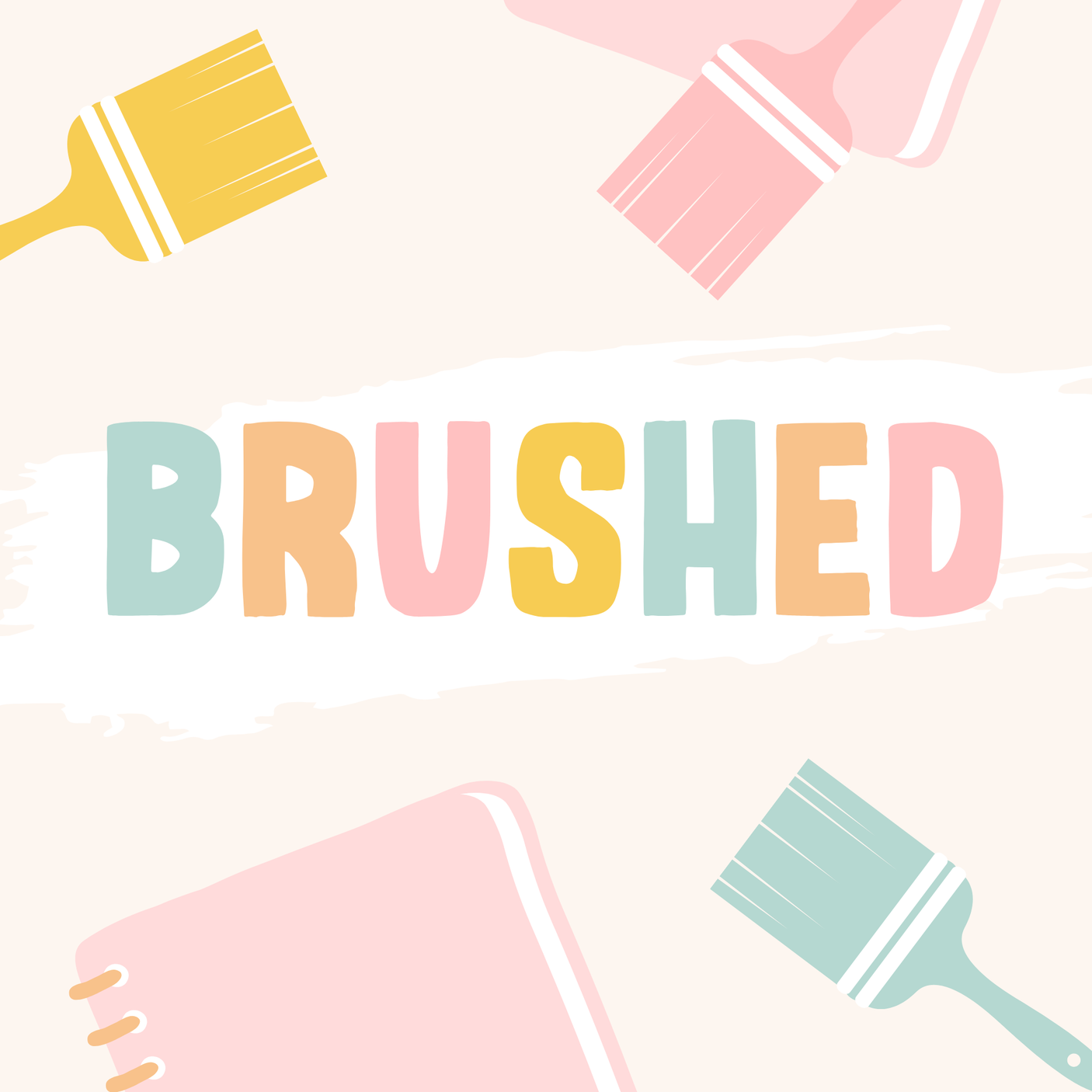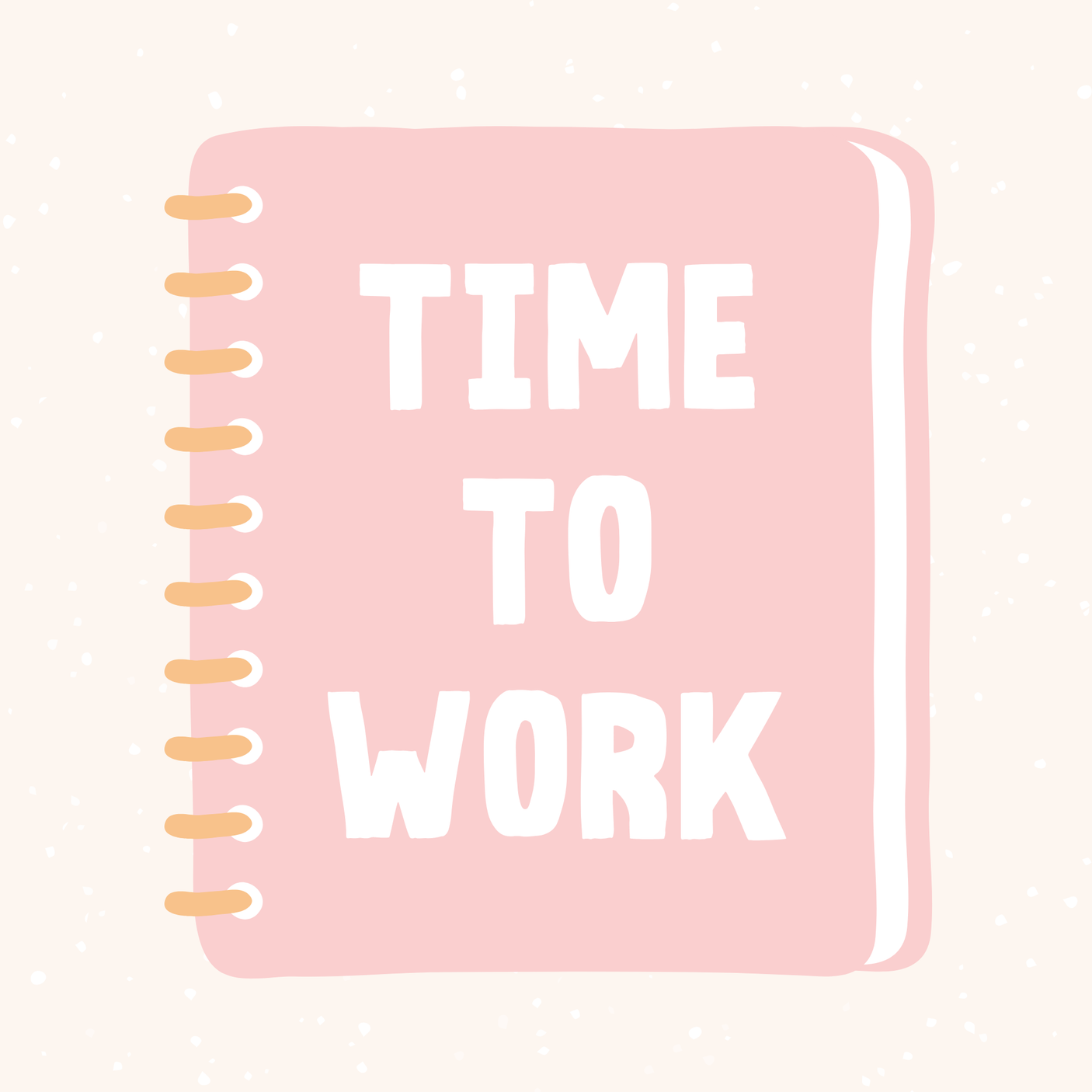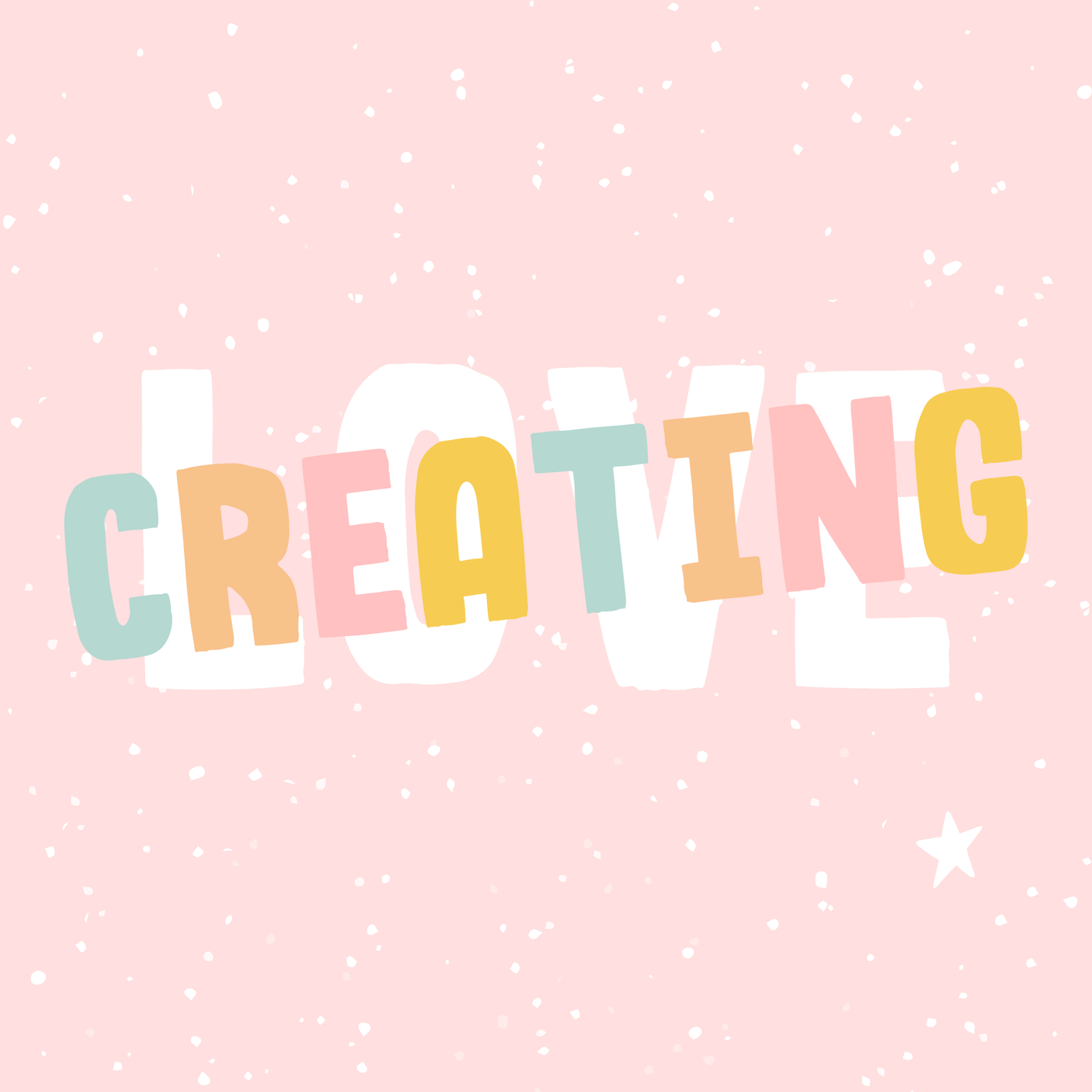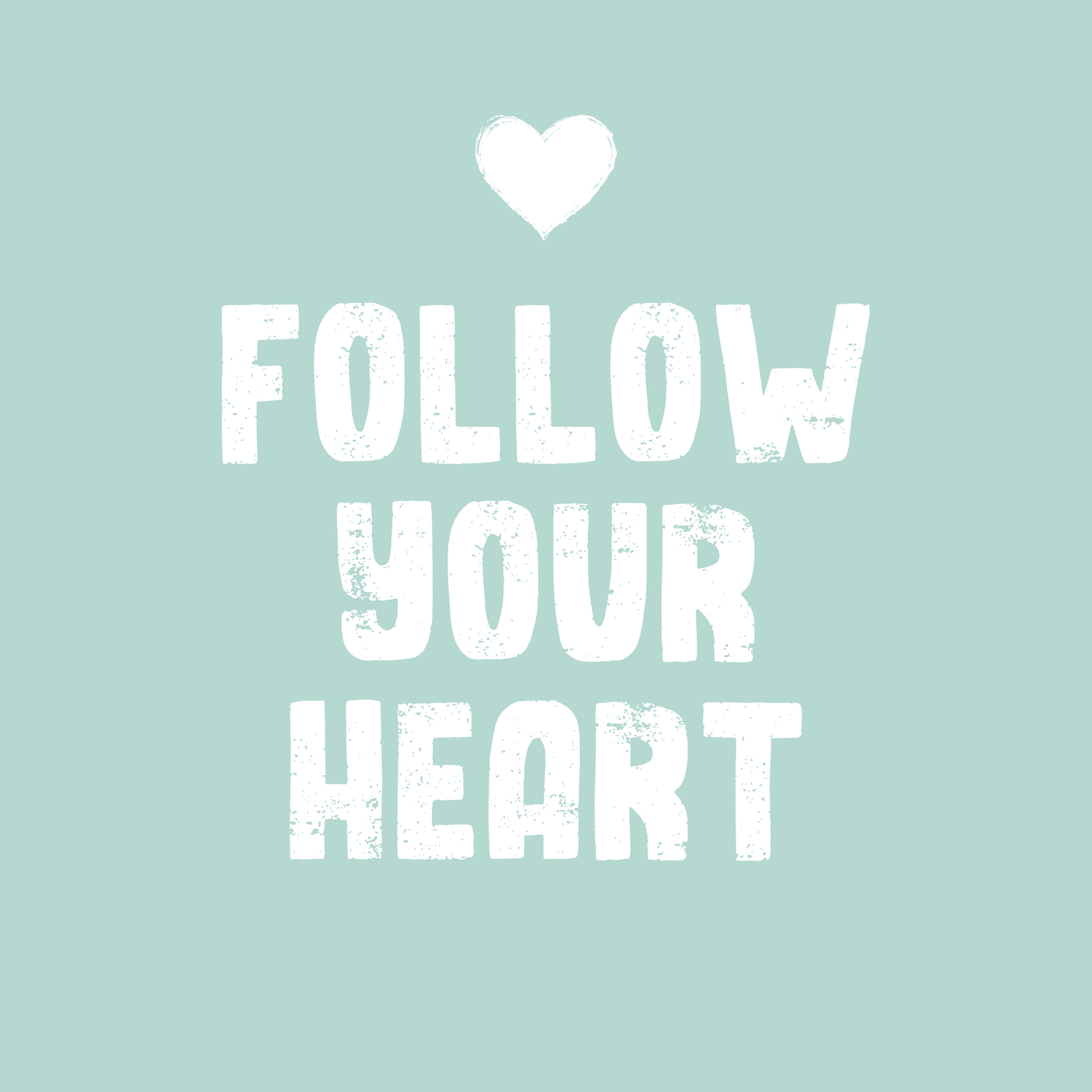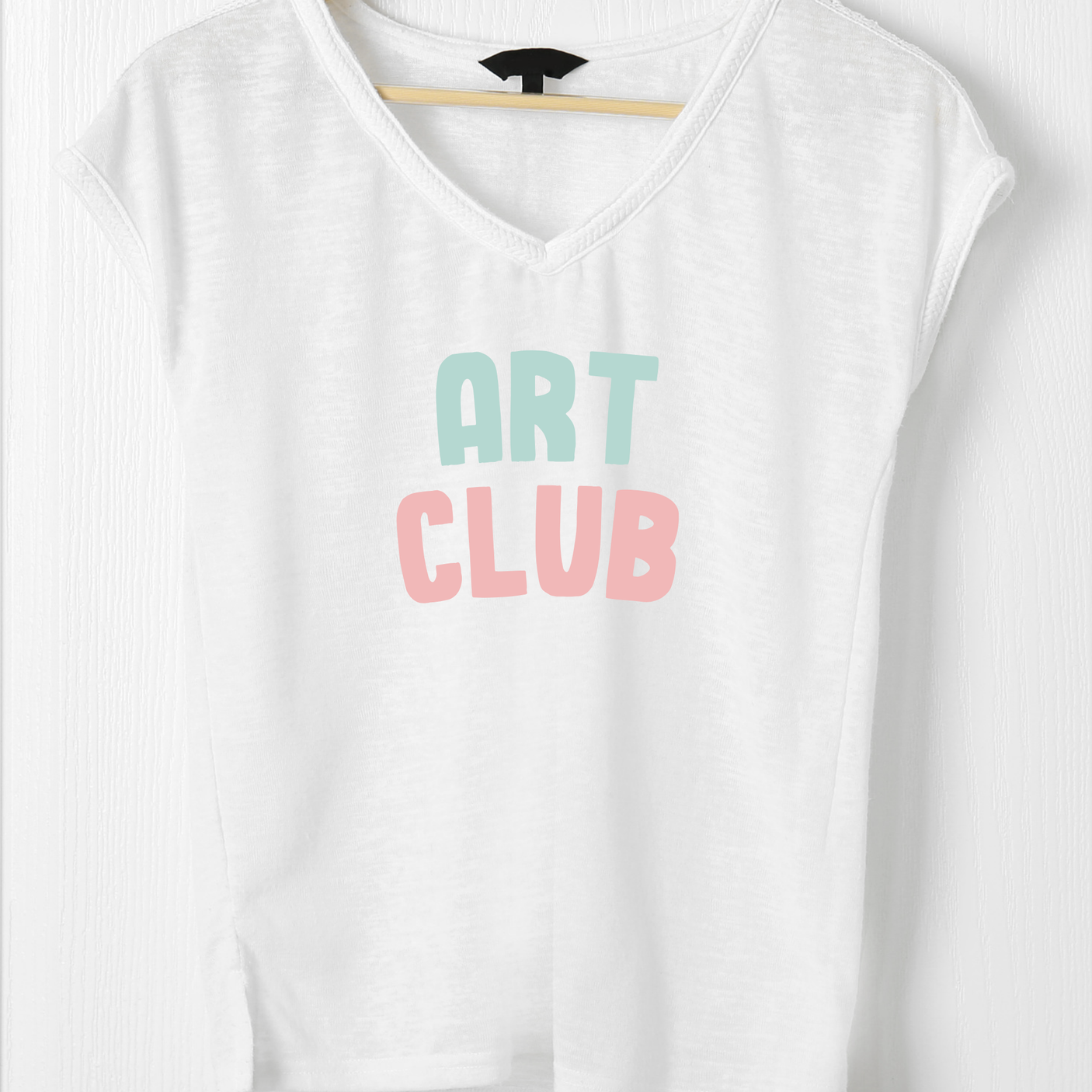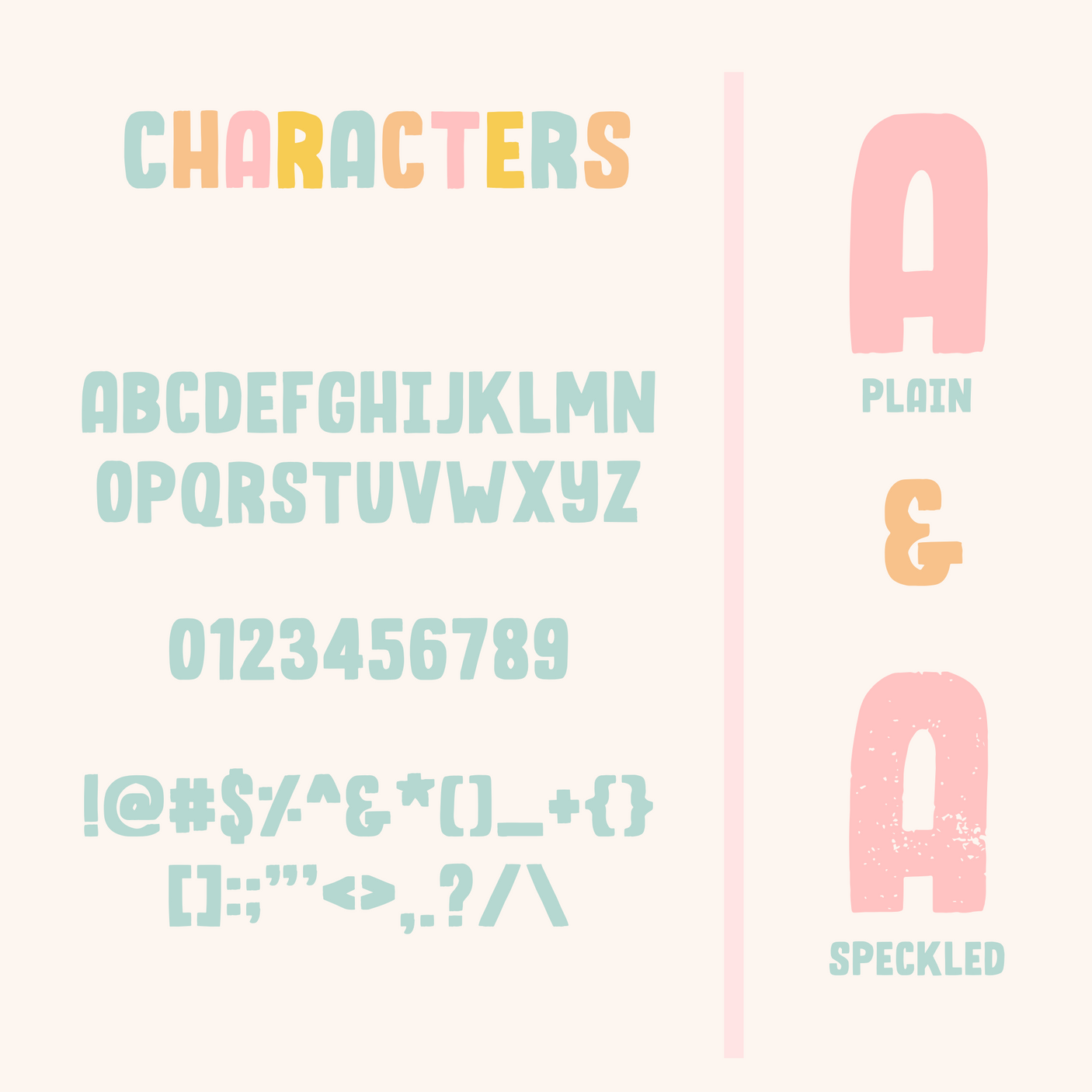
Brushed Font
Brushed font is an artsy, modern brush script font to download for personal and commercial use.
Perfect for creative projects, Instagram quotes or bold headings, Brushed is included in both regular and speckled versions.